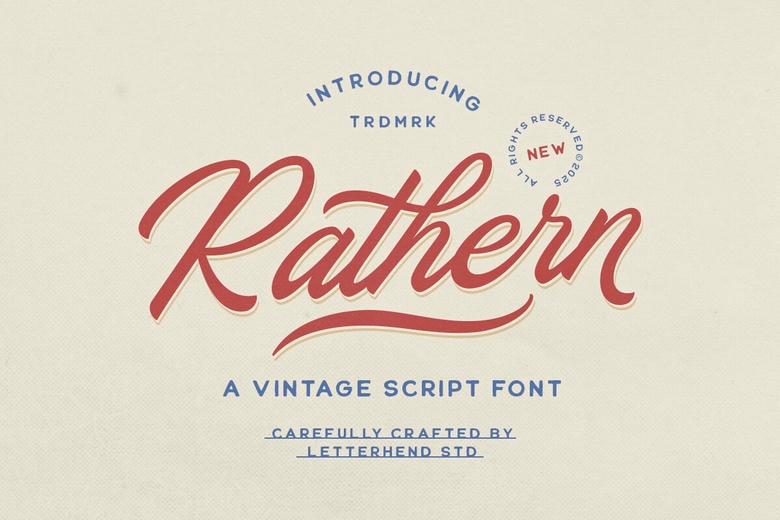
Rathern Font
Rathern is a vintage script font that combines bold curves with graceful flow beautifully and reminisces of the hand-painted lettering in the golden age of sign painting. Its flowing lines and hint of retro ornamentation suit it well in logos, packaging, poster and branding to achieve a nostalgic but elegant appearance. Rathern is a person with a confident and stylish look giving a classic touch with a full of character tone and touch.
Rathern Vintage Script Font